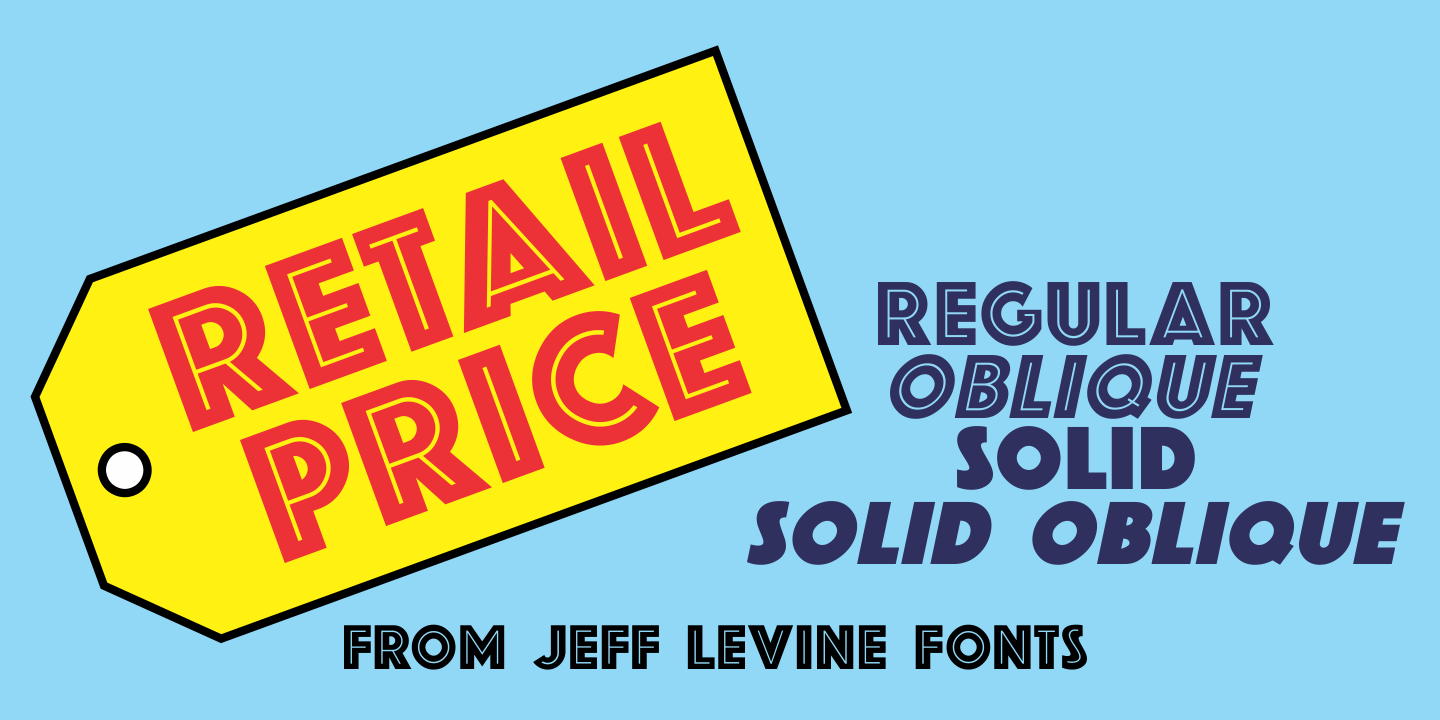
Retail Price JNL Font Free Download is a sophisticated and stylish typeface designed to enhance your branding and design projects with a touch of elegance. Its unique letterforms and clean lines make it perfect for luxury packaging, logos, editorial layouts, and advertising materials.
This font combines readability with an upscale feel, ensuring that your content looks both professional and eye-catching. Retail Price JNL Font Free Download is ideal for designers who want to make a statement with their typography.
Elevate your projects with the refined style of Retail Price JNL Font Free Download. If you’re looking for a font that blends sophistication with functionality, this is the perfect choice.